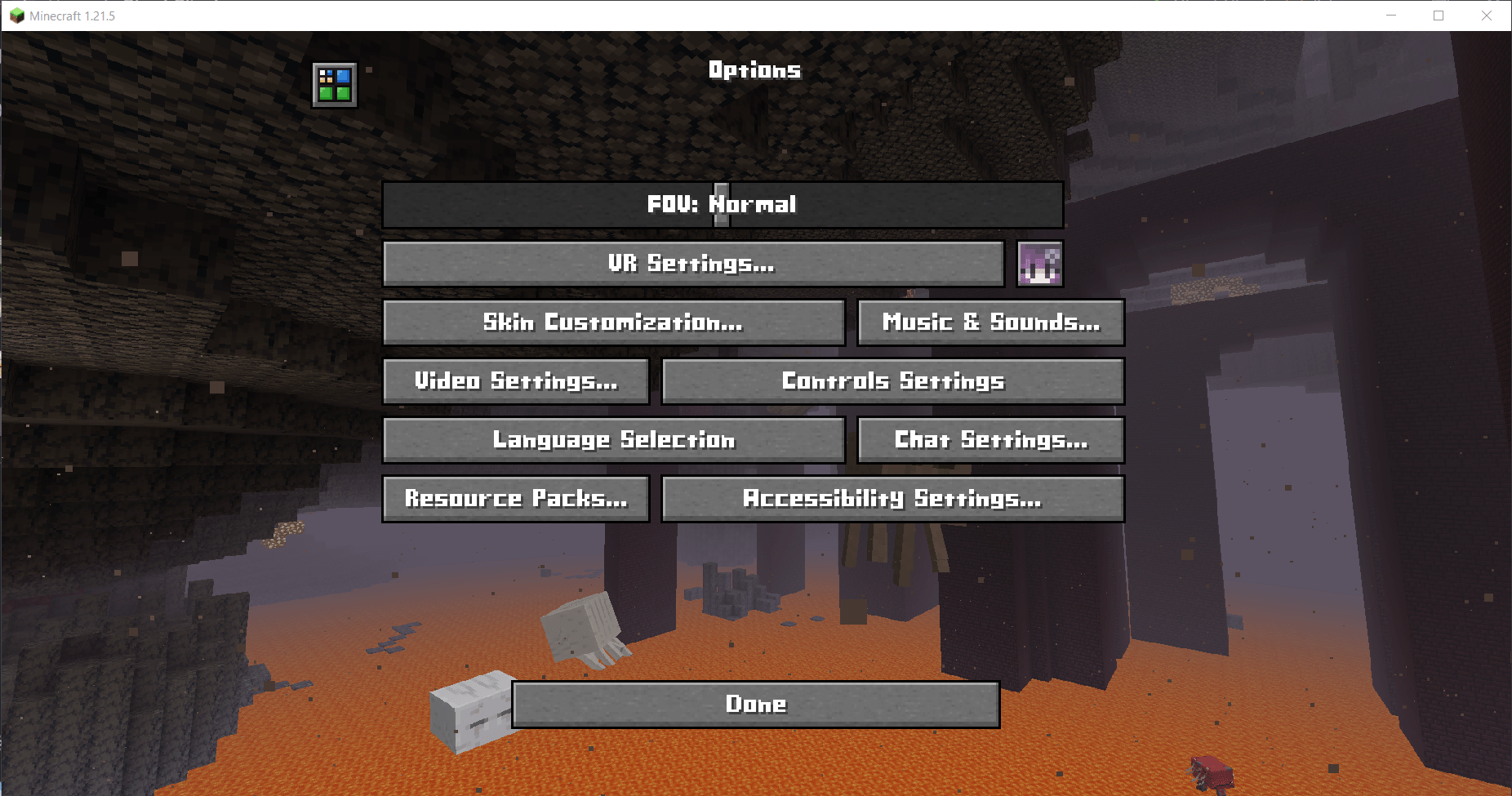
🔠 Cubic Font
A clean, bold, and blocky typeface for Minecraft 1.20.x – 1.21.x
Give your Minecraft UI a sharp new look! Cubic Font replaces the default font with a geometric, pixel-perfect cubic design that matches Minecraft’s blocky aesthetic while improving readability and style.
- 🔳 Replaces Minecraft's default font with a custom cubic-style font
- 📐 Every character designed to feel bold, clean, and "blocky"
- 🎮 Great for both modern UIs and retro/pixel art lovers
- ❌ Have bug on bold text
- Font Design: idea from minecraft 10 font